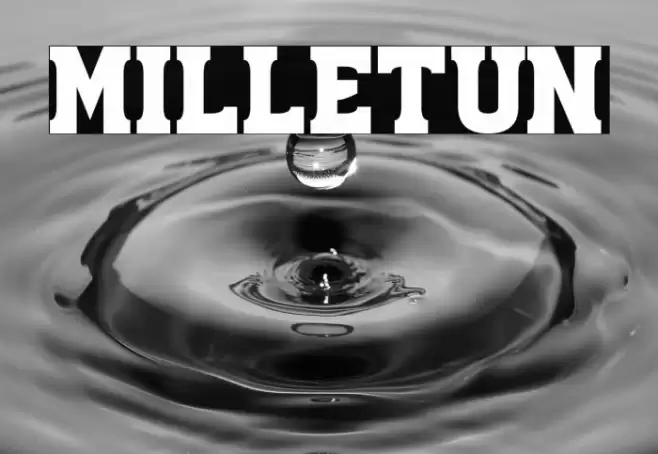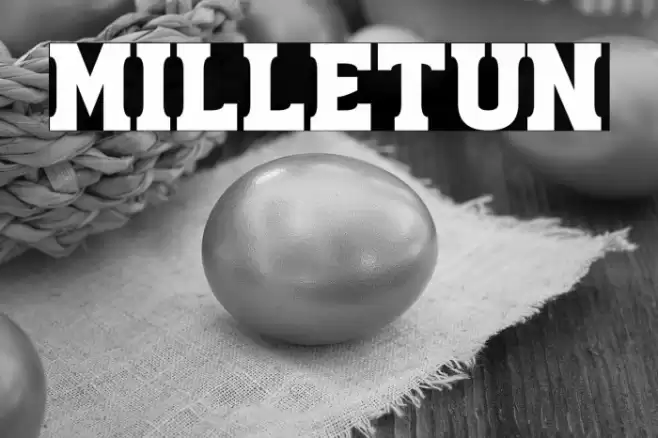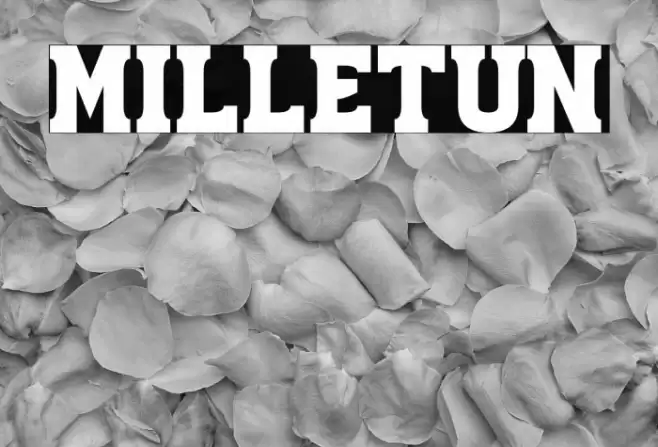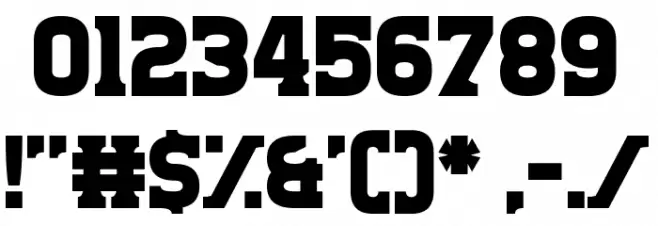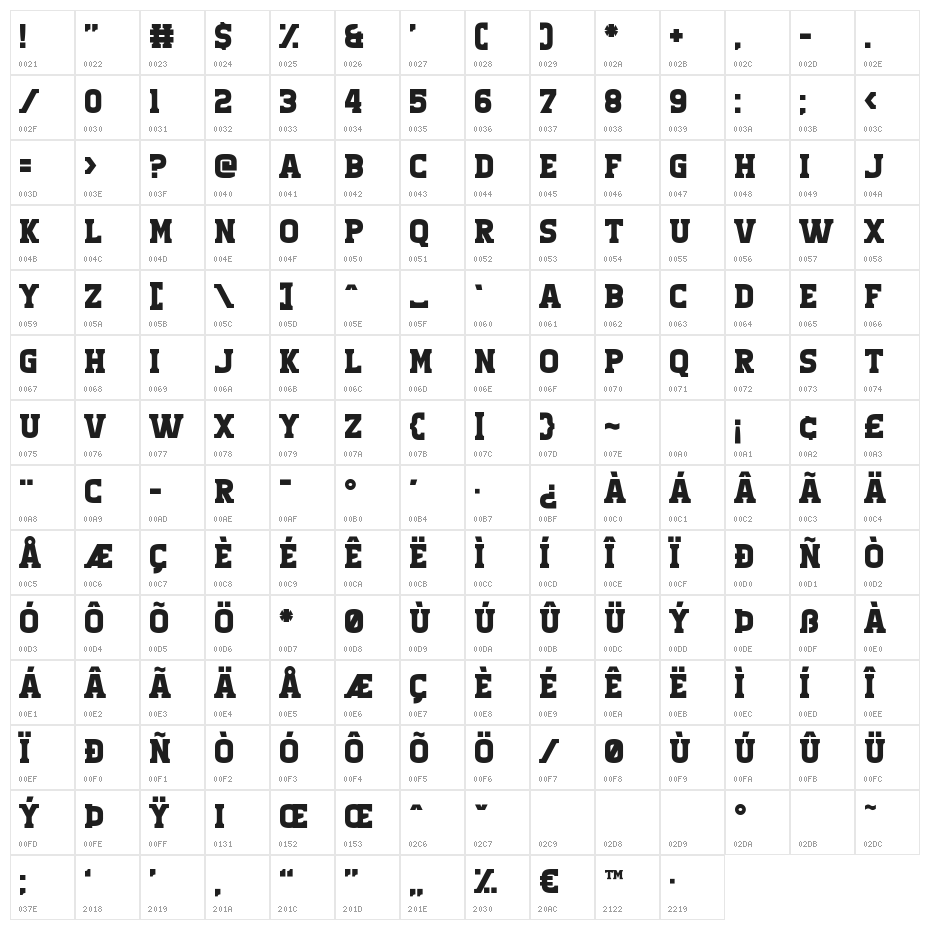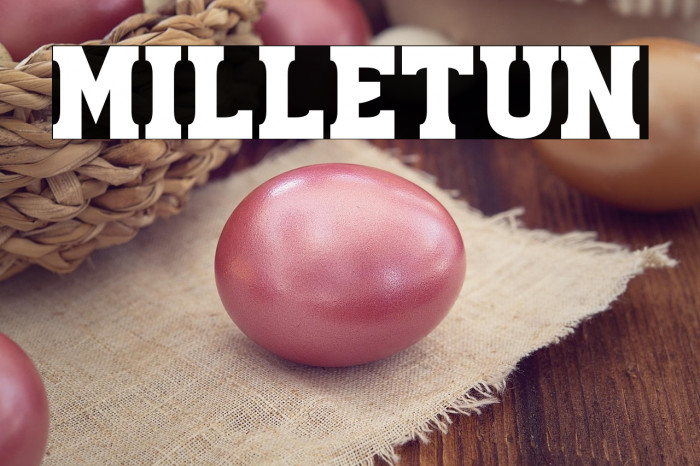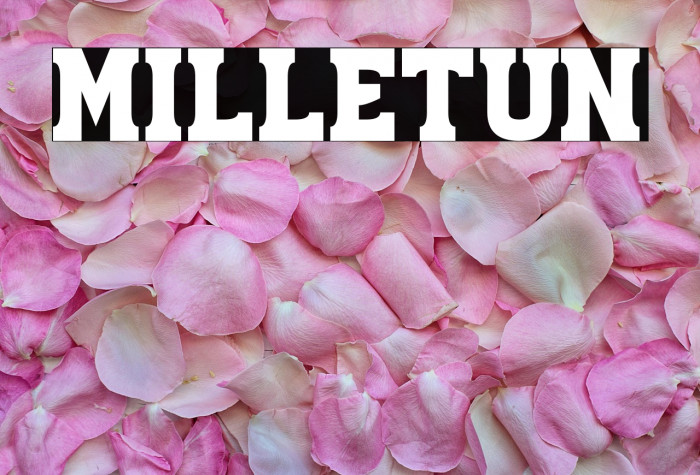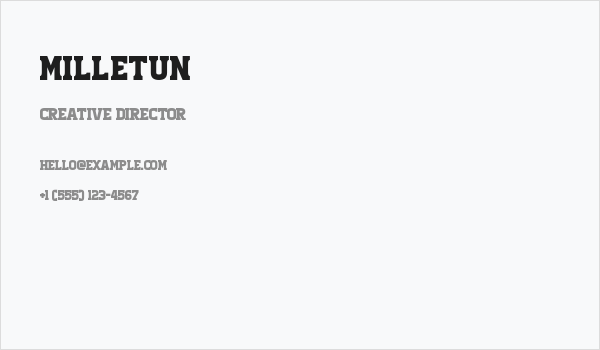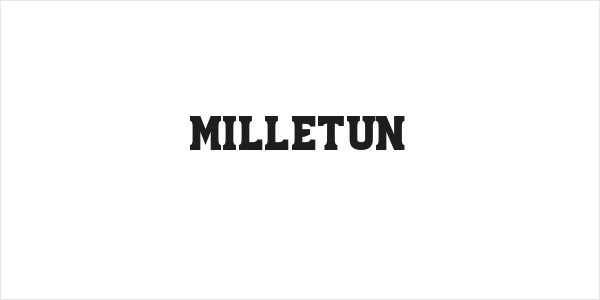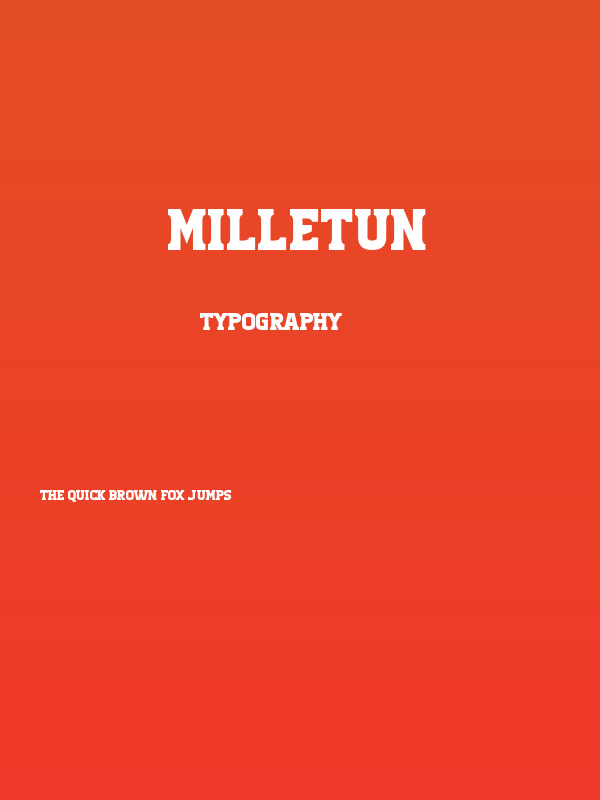
Milletun Font
Milletun Description
This font features a bold and robust design with strong, thick strokes that convey a sense of power and stability. The characters are uniformly wide, giving the font a monospaced appearance, although it is not strictly monospaced. The serifs are prominent and squared, adding to the font's authoritative and traditional feel. The overall style is reminiscent of vintage Western or collegiate typefaces, making it suitable for projects that require a bold statement. The numbers and special characters maintain the same boldness and clarity, ensuring consistency across all uses.
A bold, vintage-style serif font with strong, squared serifs from Uncategorized fonts.
- Proposed Projects: Ideal for posters, logos, headlines, and branding that require a strong, impactful presence.
- Overall Style: Vintage